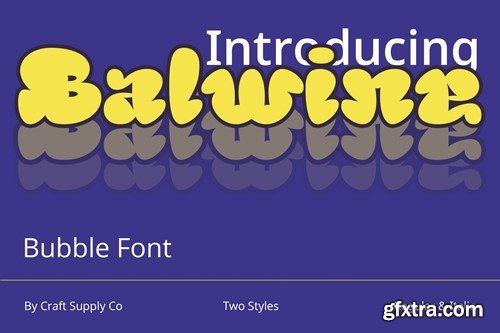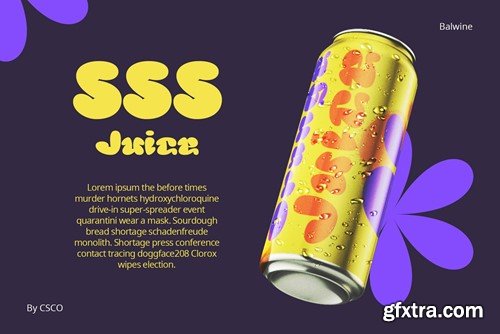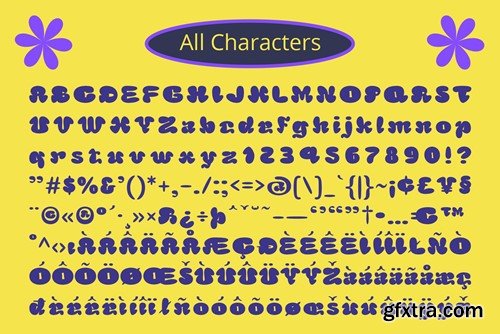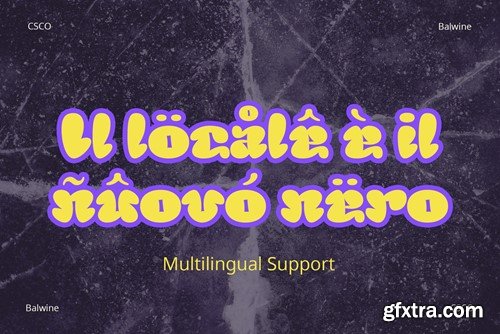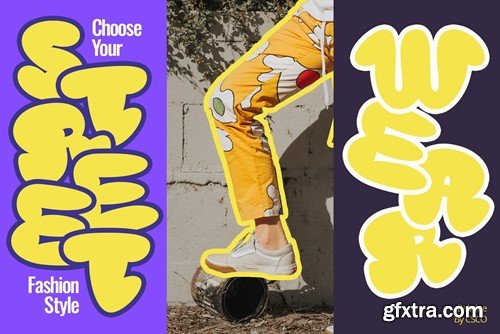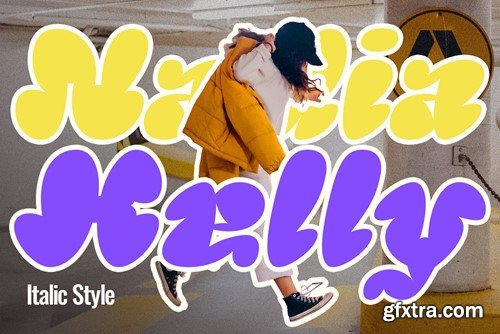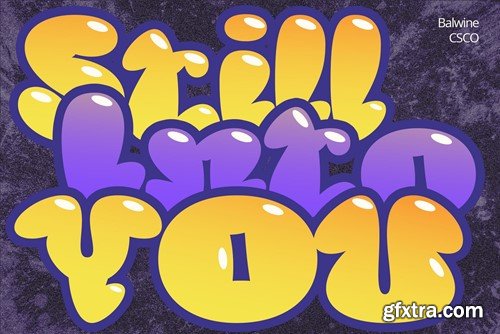
巴尔文 – 泡泡字体 8QCNH68
Balwine – Bubble Font: Where Graffiti Meets Playfulness Whimsical Inspiration Balwine, a delightful bubble font, draws inspiration from the bold and chunky aesthetics of graffiti lettering, infusing playfulness into every character display. Chubby Elegance Each letterform in Balwine exudes a chubby elegance, creating a visually appealing and friendly style that is perfect for a variety of creative projects. Vibrant Play of Colors The font’s bubbly nature invites a vibrant play of colors, making it ideal for eye-catching titles, signs, or any design element that needs a touch of cheerful charisma. Conclusion Balwine is not just a font; it’s a celebration of playful design. Whether you’re crafting a lively poster or injecting energy into a digital creation, Balwine’s bubbly charm is your creative companion. What you get : Balwine Regular Balwine Italic Features : Uppercase and lowercase characters Numerals and Punctuation (OpenType Standard) Accents (Supports Multilingual Characters) PUA Encoding You can use this typeface without needing any specialized software. If you have any inquiries or need assistance, please feel free to contact us. We appreciate your support in enhancing your creative projects! Best regards, Craft Supply Co.